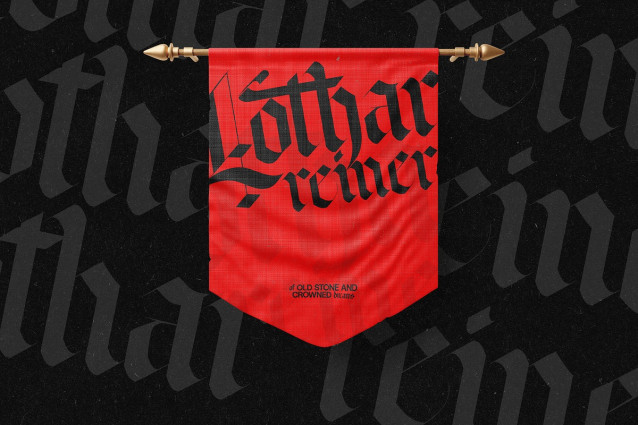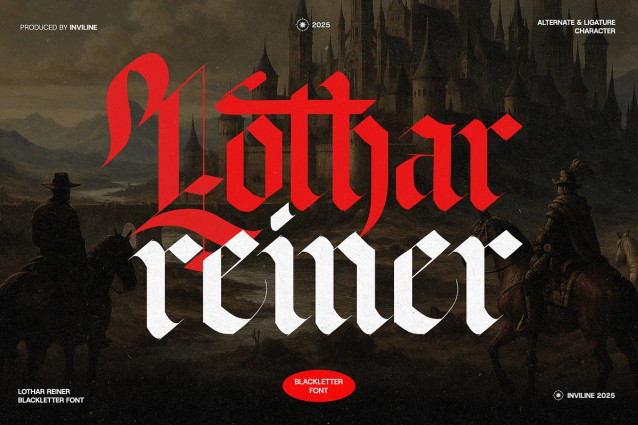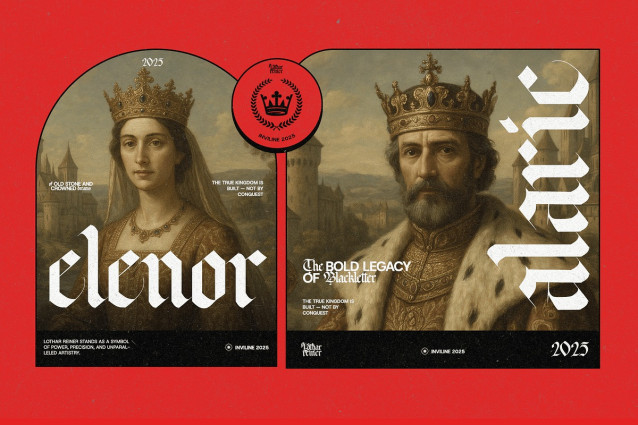
Lothar Reiner Font
Lothar Reiner Font is a powerful and dramatic blackletter font inspired by medieval manuscripts and gothic calligraphy. With sharp strokes, bold character, and rich historical aura, it’s the perfect choice for dark branding, music covers, and vintage themes.